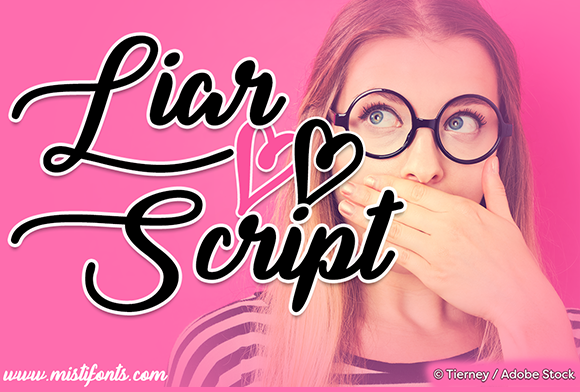
Liar Script Font
About Liar Script Font
Liar Script is a calligraphy script that makes a bold statement, making it perfect for a variety of projects!
SPECIAL SYMBOLS
Type * (asterisk) for the heart